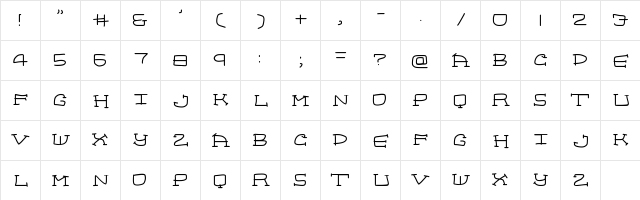
homeboys Medium Font Preview
homeboys Medium
homeboys Medium Font Details
Design Context for homeboys Typeface
homeboys offers clean, dependable letterforms without strong stylistic allegiance, making it a practical choice for designers who need flexibility.
Pro Tip: Use homeboys in both headline and body roles to test its range before committing to a single application.